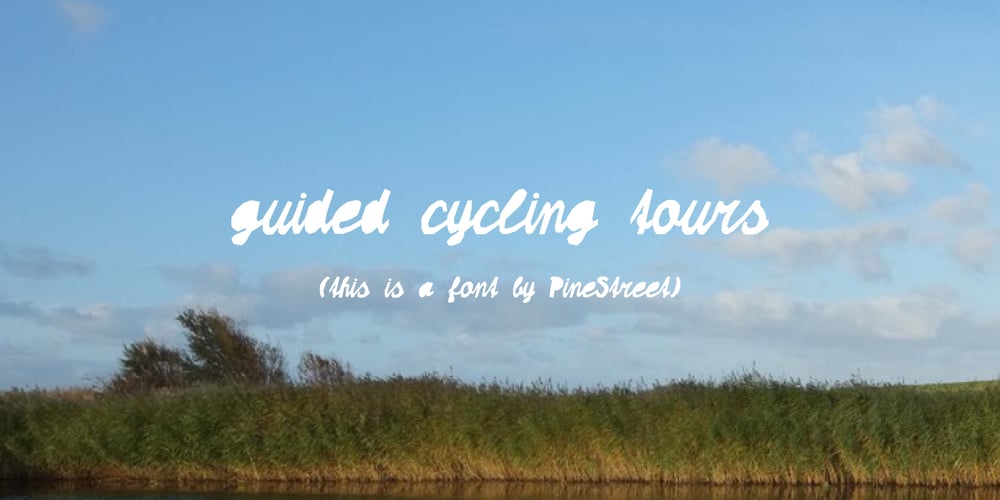
PaperCutPeach
PaperCutPeach font
PaperCutPeach Font Family was designed by Pieternella Luttikhuizen and published by PineStreet. PaperCutPeach contains 1 styles and family package options. PaperCutPeach is unique in that it is a paper cut font but also a SCRIPT FONT. With PaperCutPeach you can create extraordinary lettering that looks effortless, casual and handmade. Each and every glyph is based on a paper letter cut by hand with a pair of scissors by me in my studio. Ideal for packaging for organic products, illustrated goods, book covers, editorial illustrations and other freestyle projects.